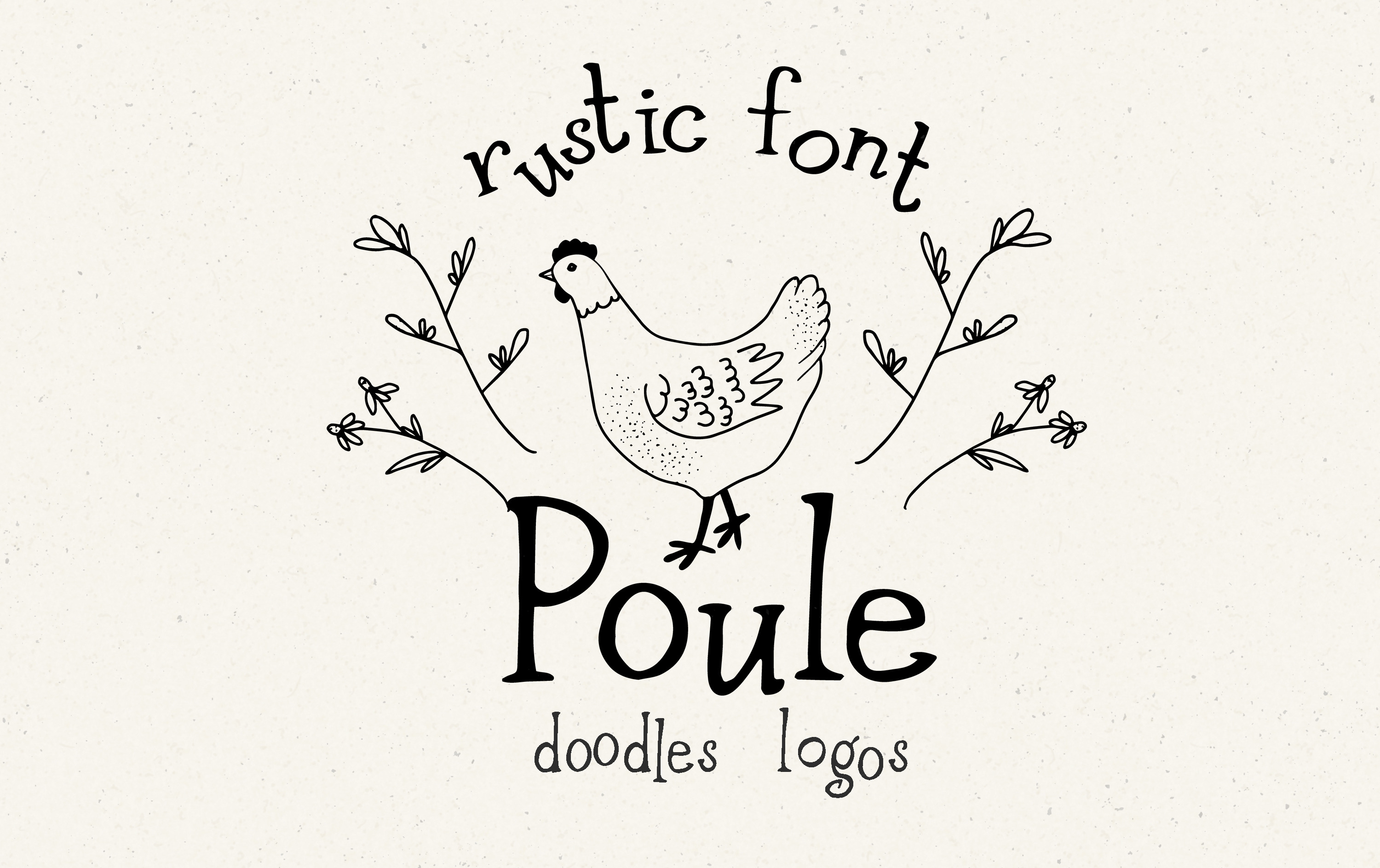
Poule Rustic Hand Written Font with ligatures +32 Doodles and 8 pre-made logos SERIF font. You will receive: GREENFARM font (OTF, TTF, WOFF, WOFF2 ) A farmhouse style serif font, languages support. 32 Hand-Illustrated Farmhouse Vectors PNG, AI & EPS. 8 Easily-Editable Logos (AI & EPS) - You will need vector-editing software to use these. The logos can NOT be edited in Photoshop, or PS Elements. You will need a copy of Illustrator or Inkscape to properly edit the vectors and logos. To avoid any font substitution problems, just install all the font files BEFORE you open the AI/EPS files. Please don't just resell the logos as your own.